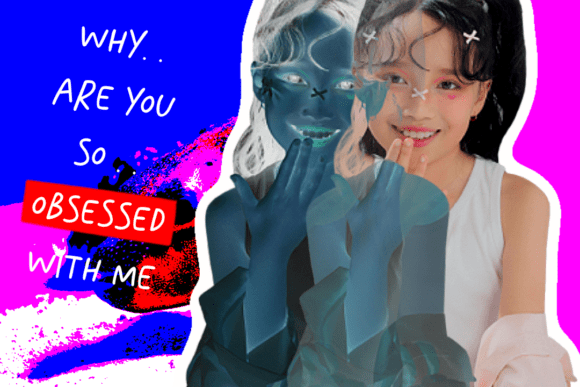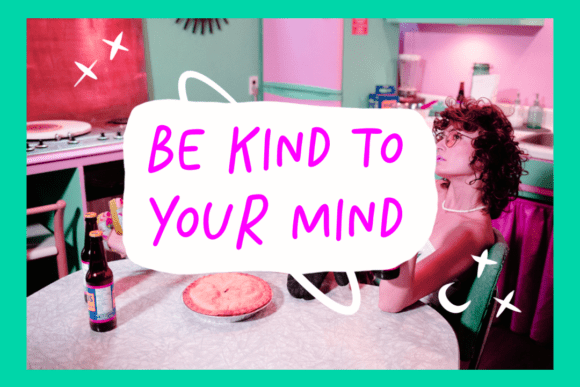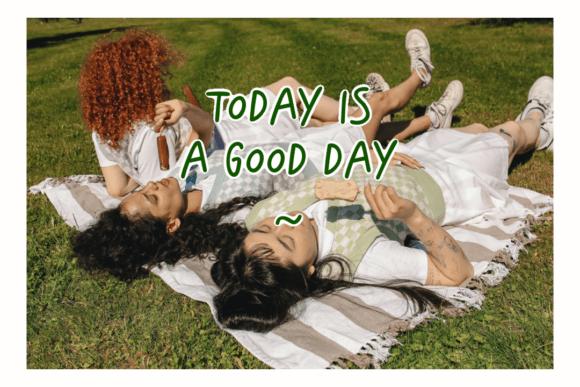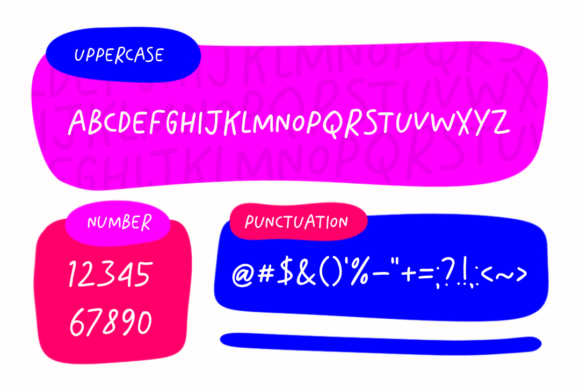
Introduction to Playful Punch Font Font
Fonts play a crucial role in design, and the Playful Punch Font font is a typeface that brings both character and versatility to any project. Whether you’re working on a branding project, a website, or a print design, the Playful Punch Font font offers a unique style that can elevate your work.
Introducing βPlayful Punchβ, a font bursting with lively charm, defined by a buoyant baseline and delightfully erratic strokes.
This typeface is designed to inspire joy and command attention, making it an irresistible choice when your project needs an element of fun Ideal for designing pieces aimed at children, constructing standout headlines, building distinctive brand voices, or introducing laid-back sophistication, Playful Punch instantly transforms your work into an exclusive and captivating creation.
Key Features of Playful Punch Font Font
Why Choose Playful Punch Font Font?
The Playful Punch Font font is more than just a typeface β it’s a design tool that helps you communicate your message with style and clarity. Its unique character set and versatile design make it suitable for a wide range of applications, from elegant invitations to bold headlines.
With its carefully crafted letterforms and balanced proportions, the Playful Punch Font font ensures readability and visual appeal across all mediums.
What makes Playful Punch Font font special?
The Playful Punch Font font stands out with its unique design, exceptional readability, and versatility across various design applications.